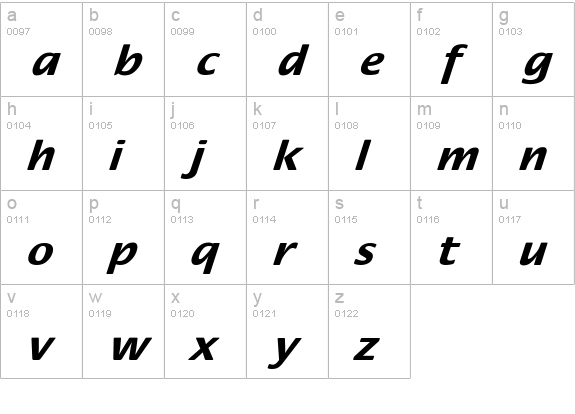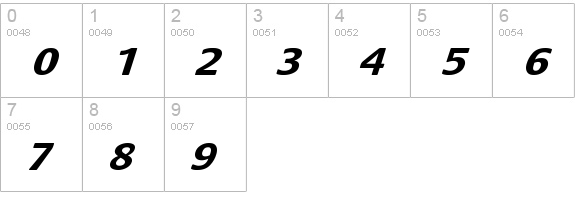
StackExtObl-Bol Font Details
Introducing StackExtObl-Bol, a unique and versatile font that combines modern aesthetics with a touch of sophistication. This font is perfect for designers and creatives who are looking to make a bold statement with their typography. StackExtObl-Bol boasts a stunning oblique design that adds a sense of dynamism and energy to any project. Its elongated letterforms create a sense of movement, making it ideal for headlines, titles, and eye-catching displays. With its generous x-height and wide letter spacing, StackExtObl-Bol ensures optimal legibility and readability, even at smaller point sizes. This makes it a versatile choice for various design applications, including print, web, and mobile interfaces. But what truly sets StackExtObl-Bol apart is that it is available for free download at FontsMarket.com. Yes, you read that right! This font can be yours without spending a penny. It's the perfect opportunity to elevate your design projects without breaking the bank. So, whether you're a seasoned designer or just starting out, StackExtObl-Bol is a must-have addition to your font library. Its bold and stylish presence will effortlessly enhance your creations, leaving a lasting impression on your audience. Download StackExtObl-Bol for free today at FontsMarket.com and unleash the full potential of your design projects. Don't miss out on this incredible opportunity to add a touch of elegance and sophistication to your typography.